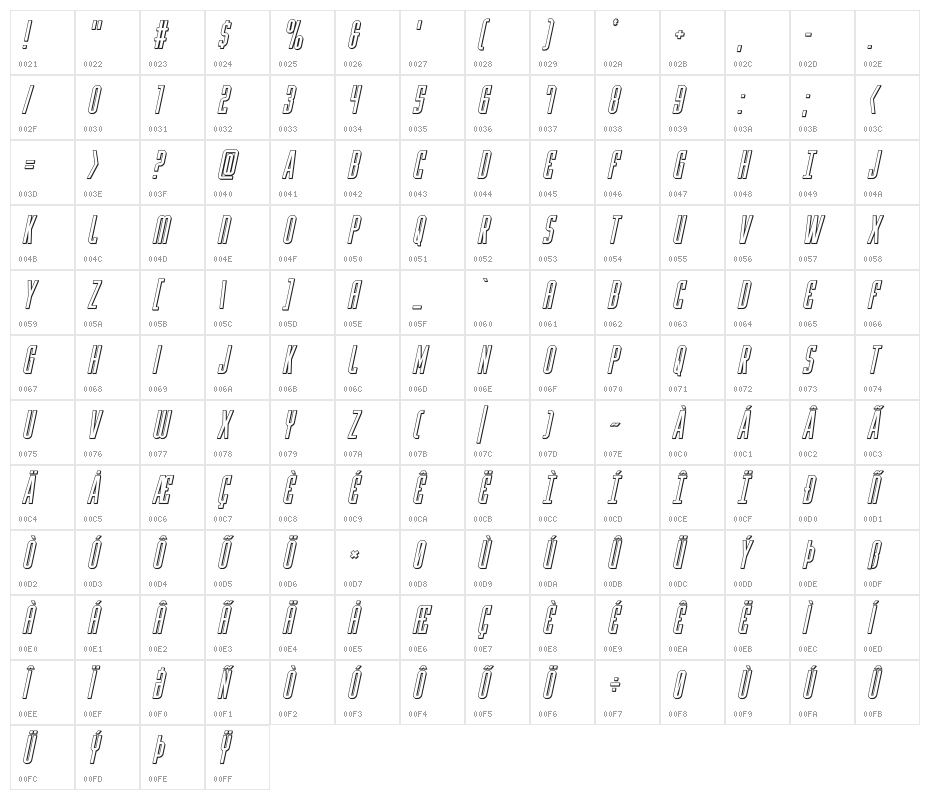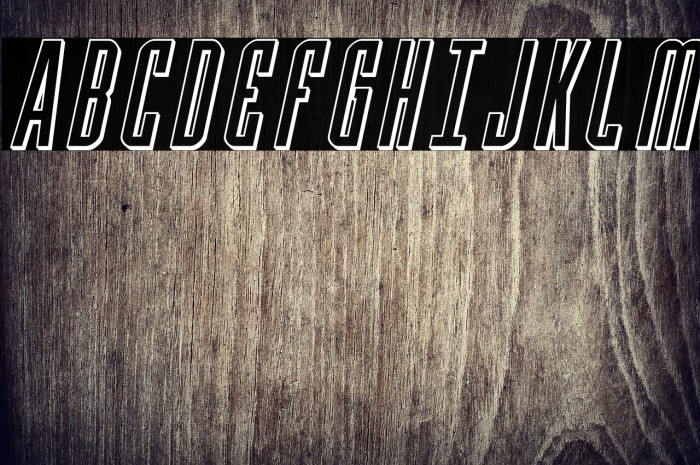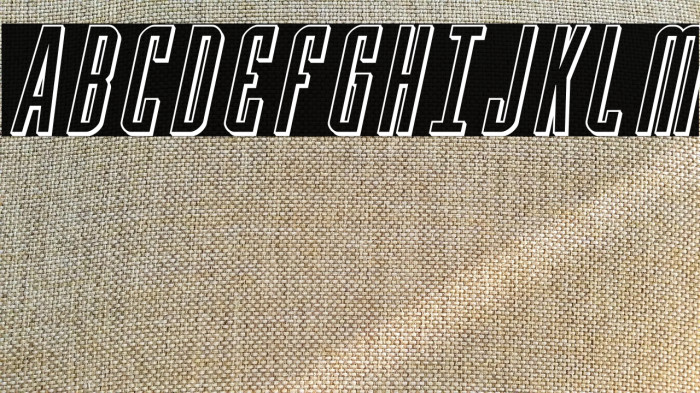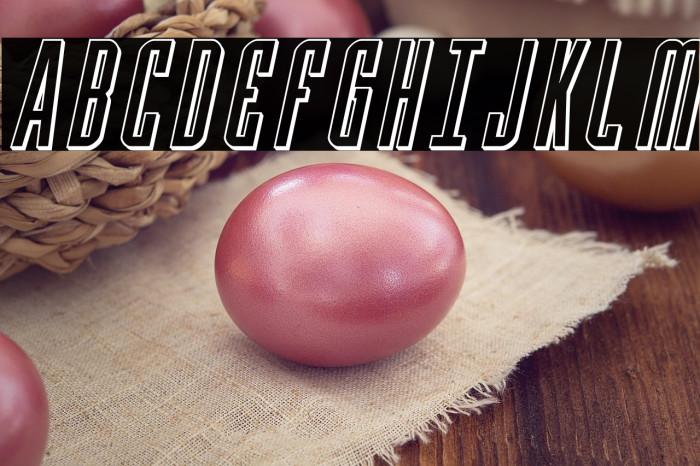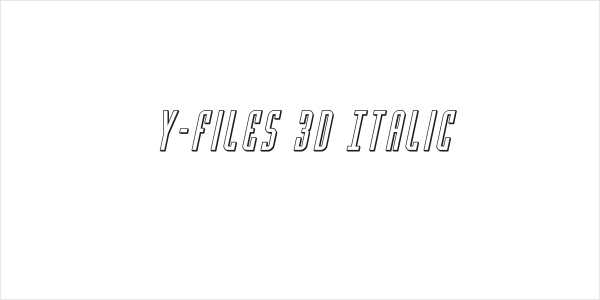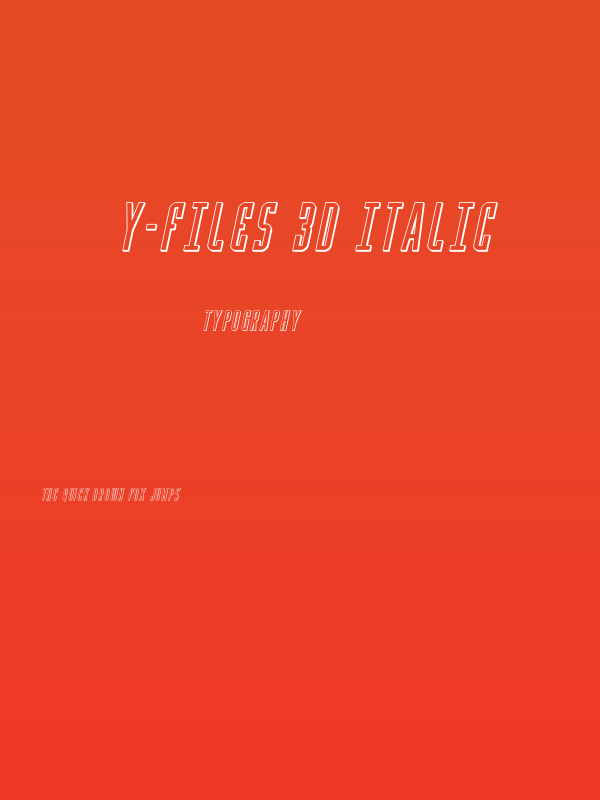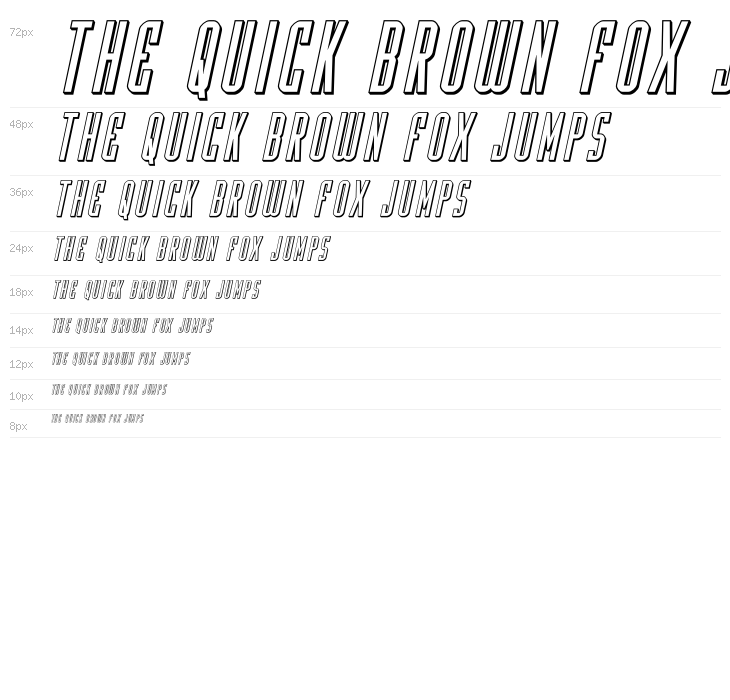
Y-Files 3D Italic Font
Y-Files 3D Italic Description
This font features a bold, italicized style with a distinct 3D effect, giving it a dynamic and modern appearance. The characters are outlined, creating a sense of depth and movement. The uppercase and lowercase letters are consistent in their slanted orientation, enhancing the italicized look. The numbers and special characters maintain the same stylistic features, ensuring uniformity across all glyphs. The font's design is both eye-catching and versatile, suitable for a variety of creative applications.
| Proposed Projects | Ideal for posters, logos, headlines, and any design requiring a modern, dynamic look. |